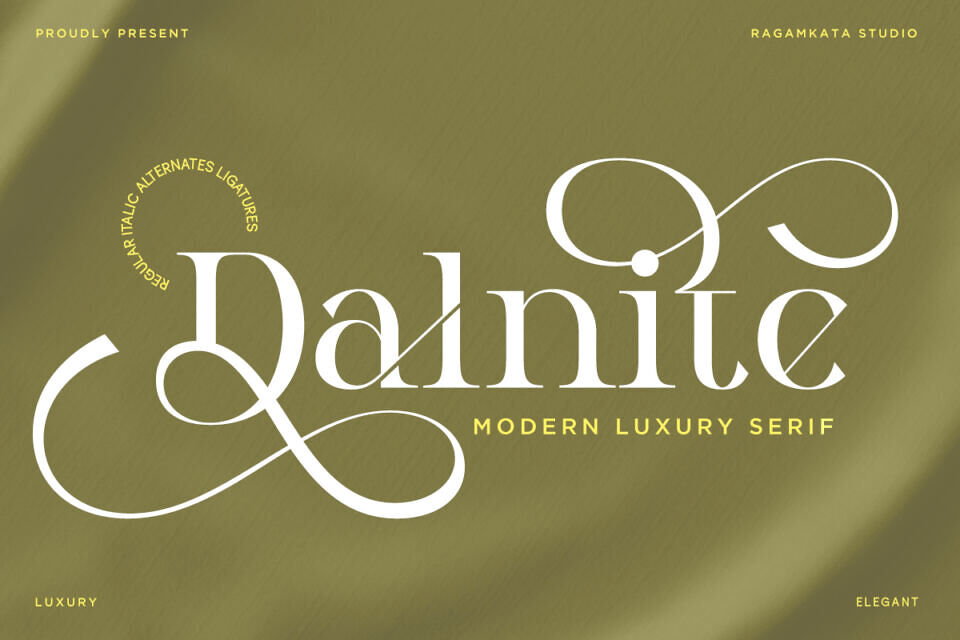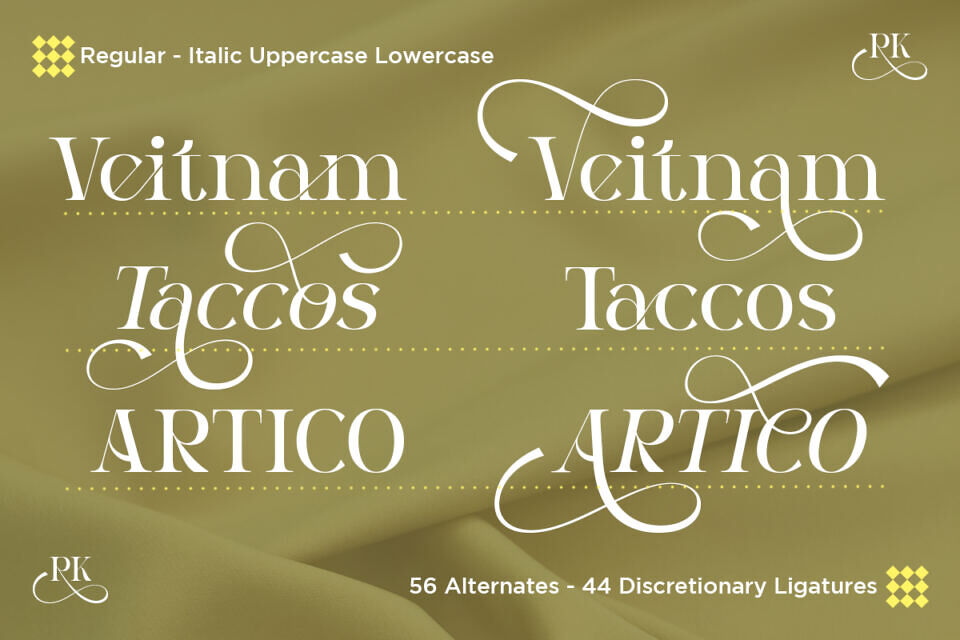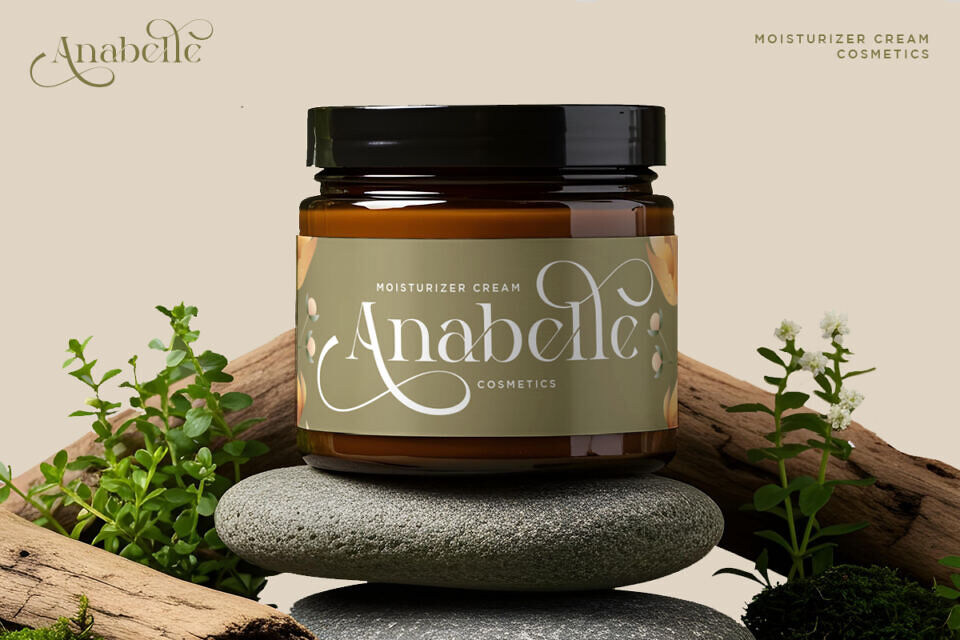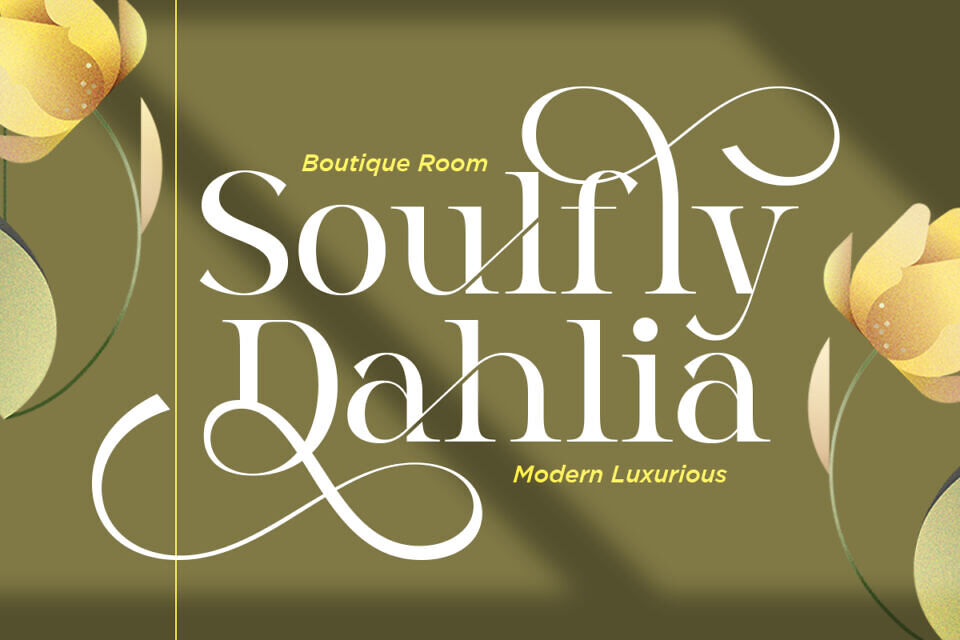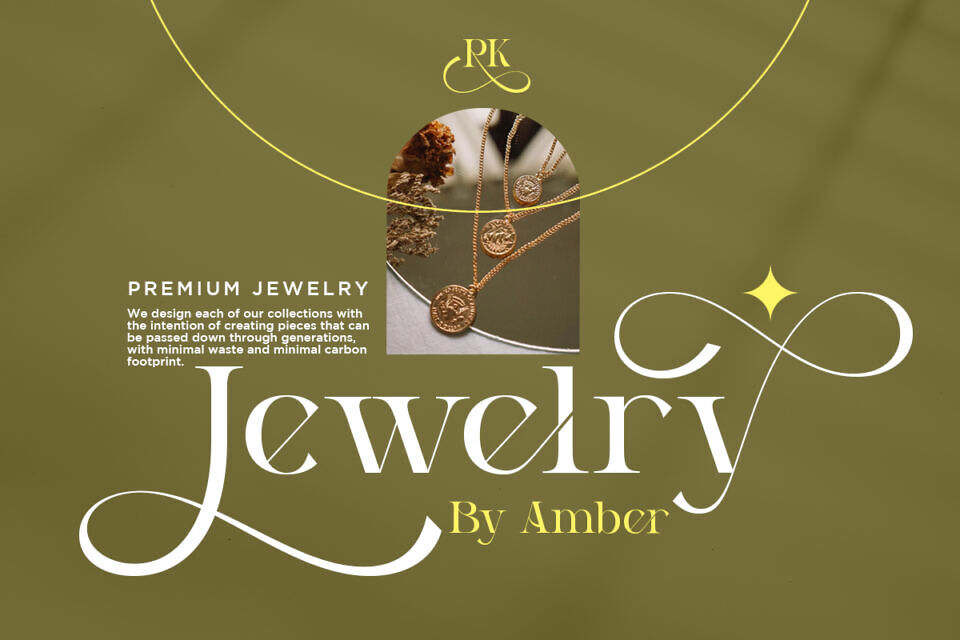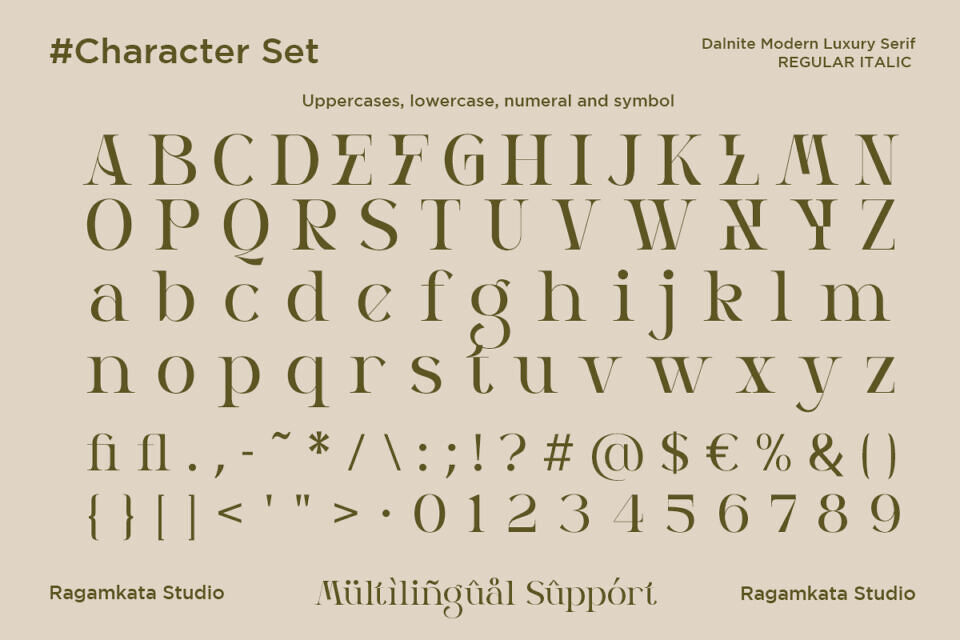
Dalnite Font
Dalnite is a modern luxury serif that exudes timeless sophistication and editorial charm. With elegant ligatures, refined alternates, and balanced contrasts, it’s designed to elevate your branding, fashion, or wedding projects.
Perfect for high-end logos, magazines, invitations, and packaging, Dalnite brings a graceful modern touch to every visual identity. Available in regular, italic, and alternate styles for complete creative flexibility.